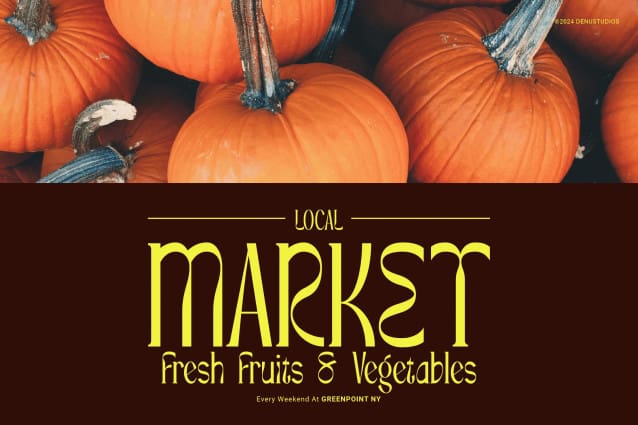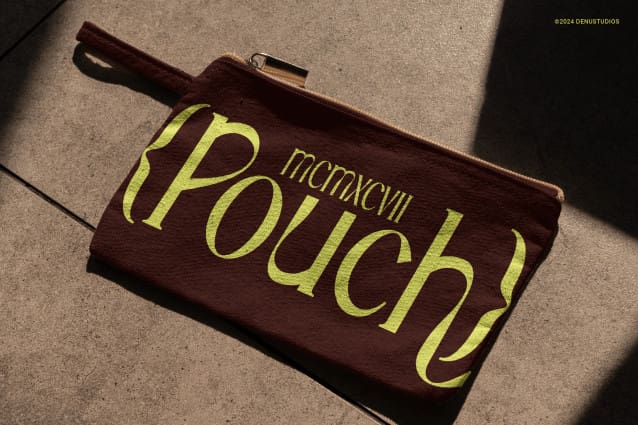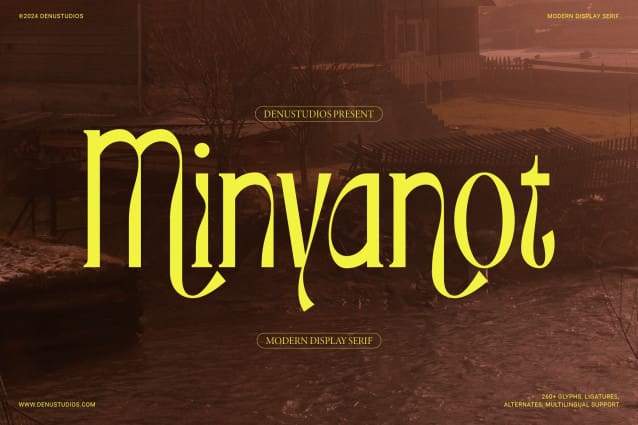
Minyanot Font
Minyanot Font | Modern Display Serif, from Denustudios, suitable for any projects such as: logos, branding projects, homeware designs, product packaging, mugs, quotes, posters, shopping bags, t-shirts, book covers, name card, invitation cards, greeting cards, label, photography, watermark, special events, and all your other lovely projects that need a Modern Display Serif taste.